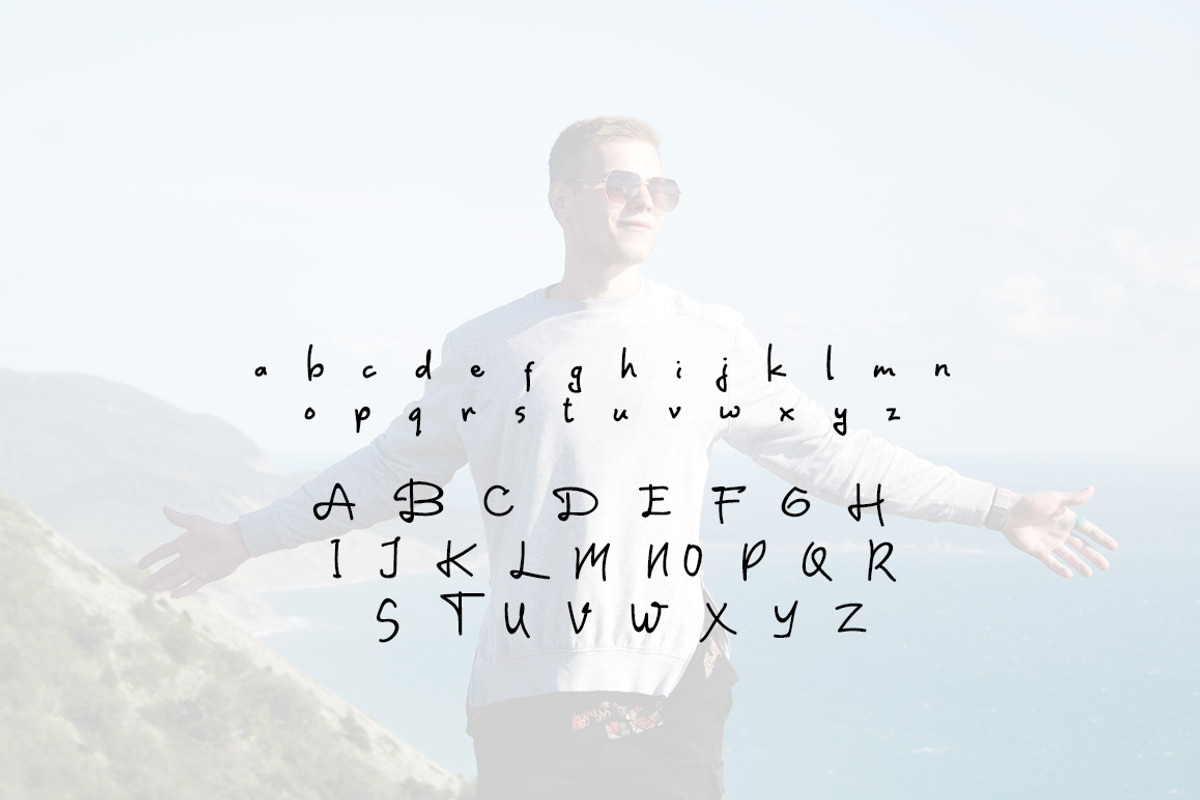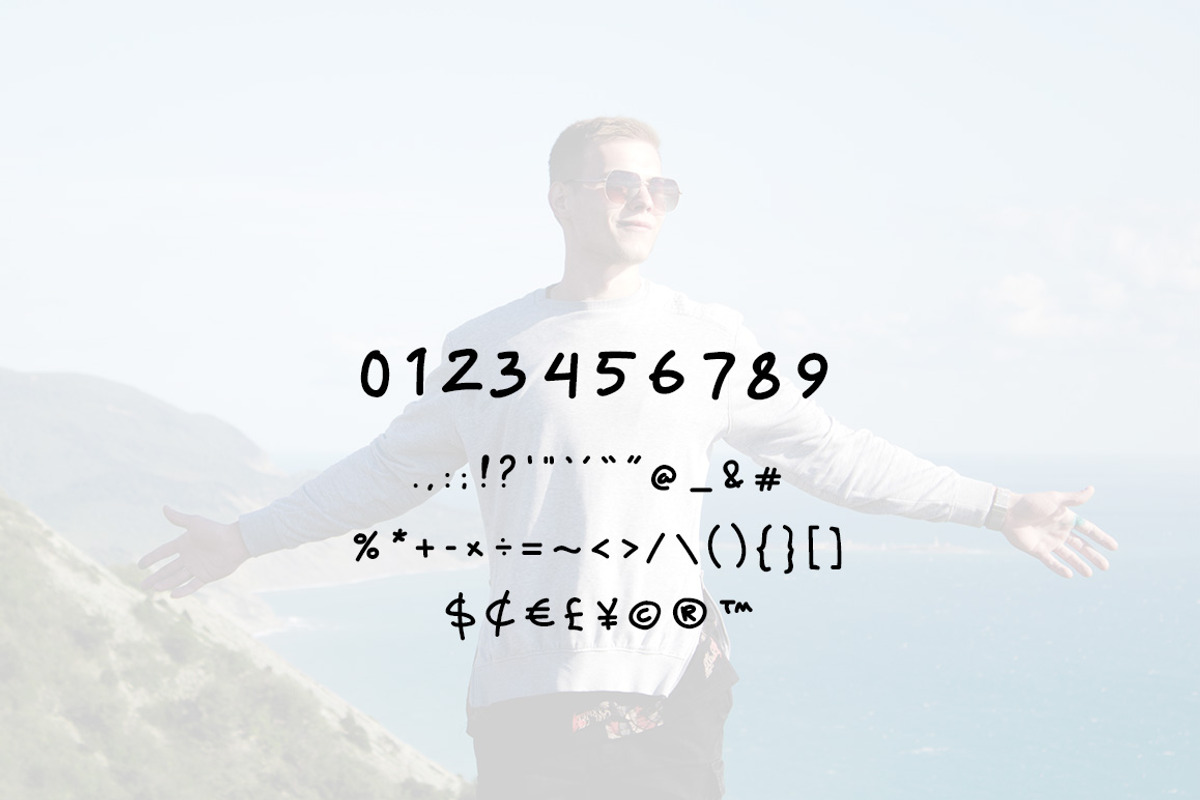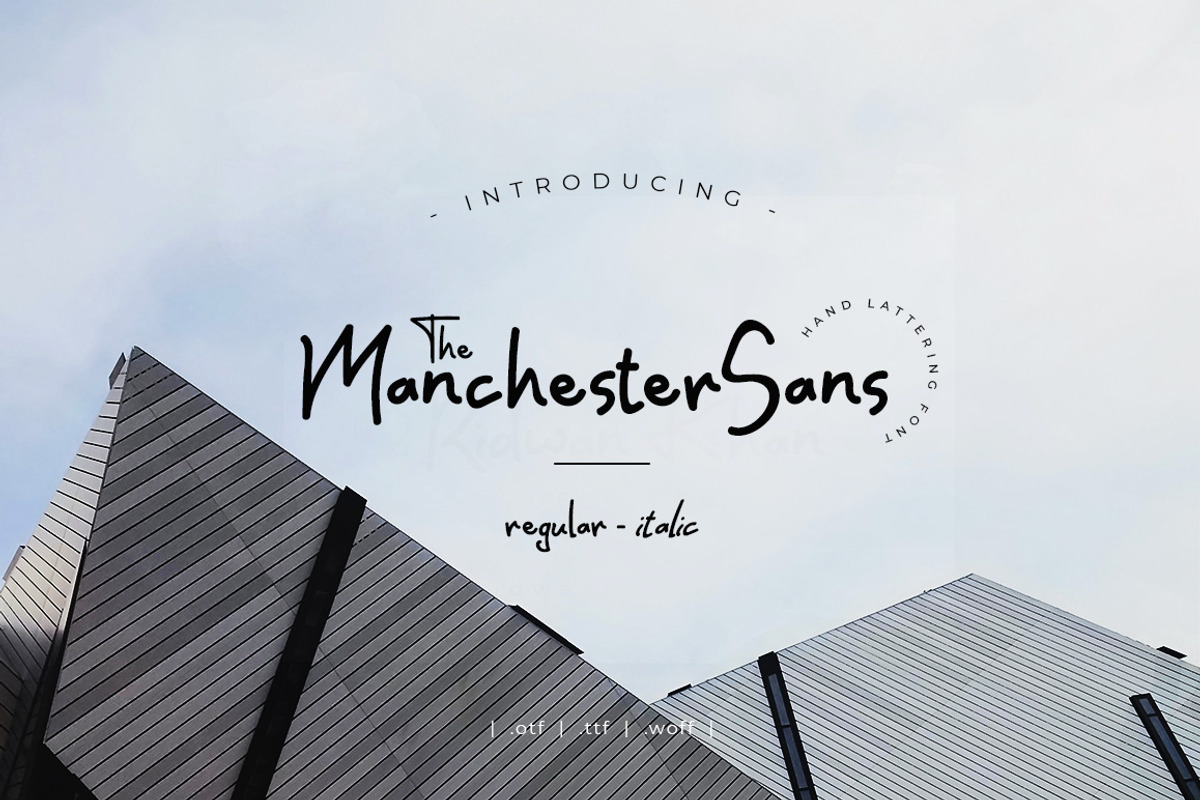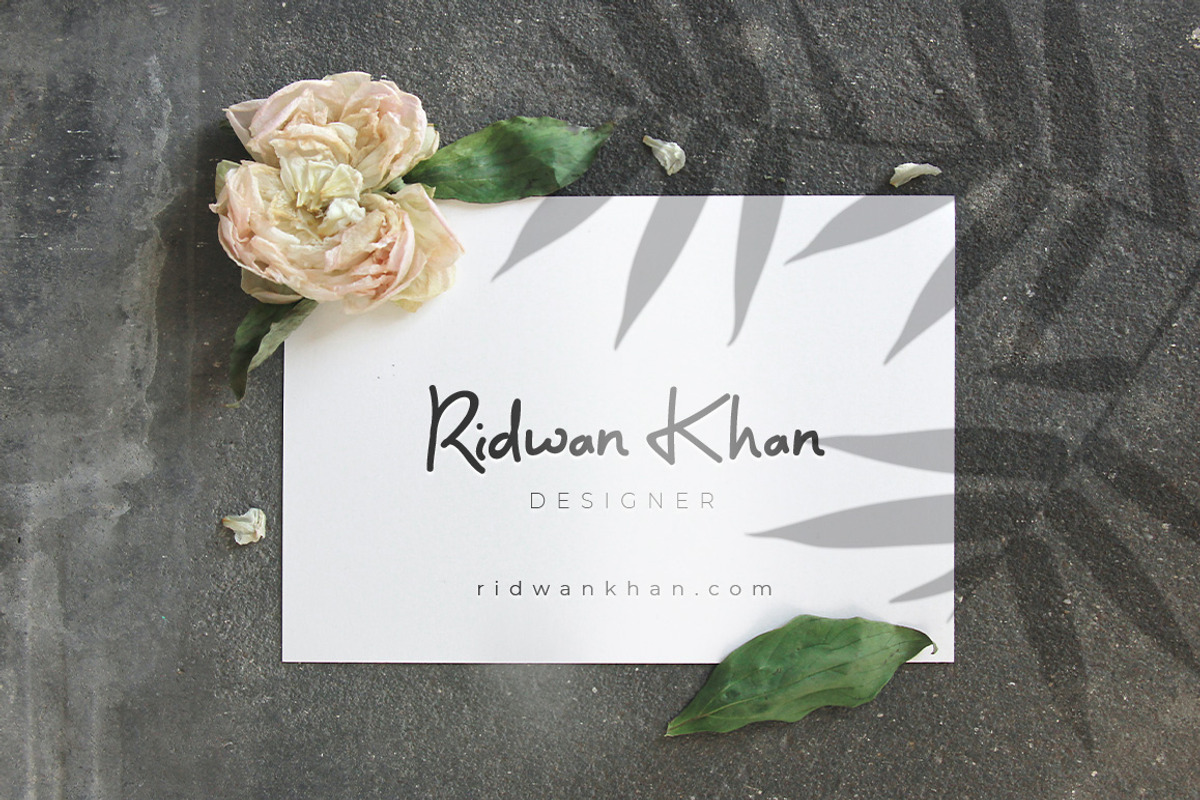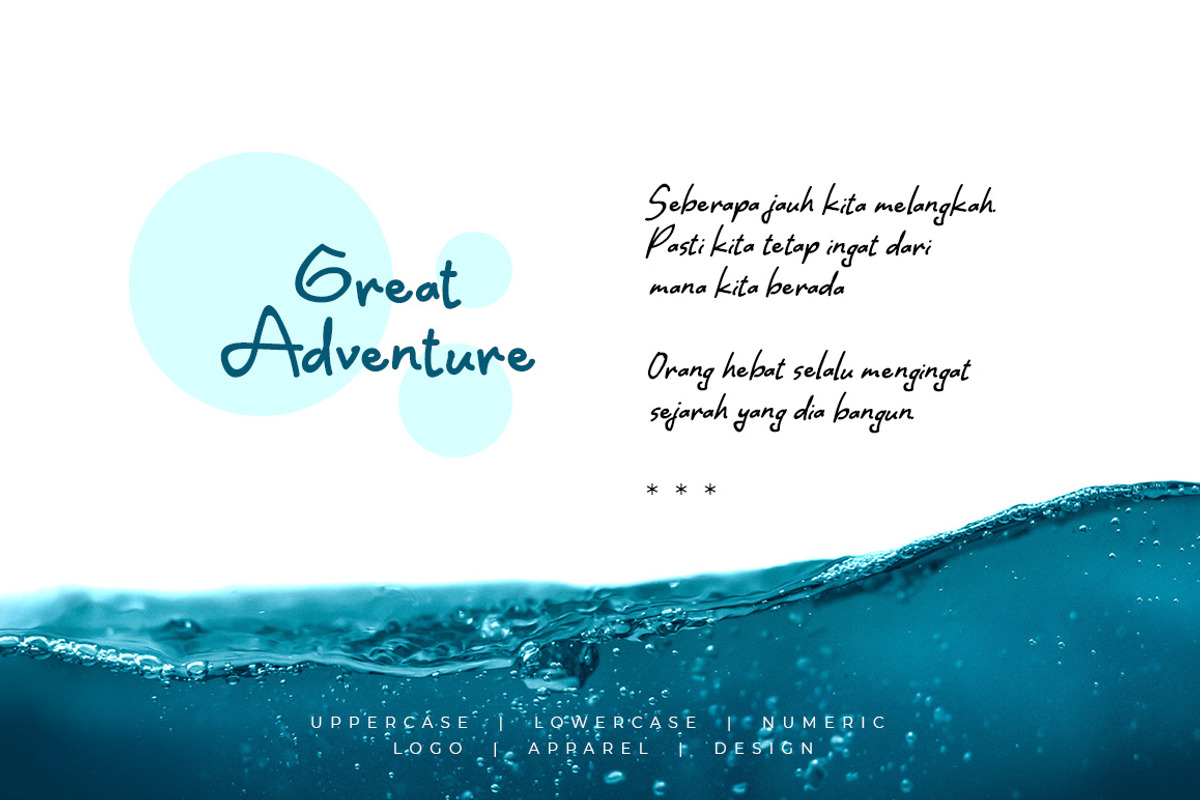
Manchester Sans
Manchester Sans Font is a stylish handwritten font that features a varying baseline, smooth line, classic and interesting touch. Can be used for various purposes. such as headings, signature, logos, posters, t-shirt, signage, lable, wedding invitation, badges etc.